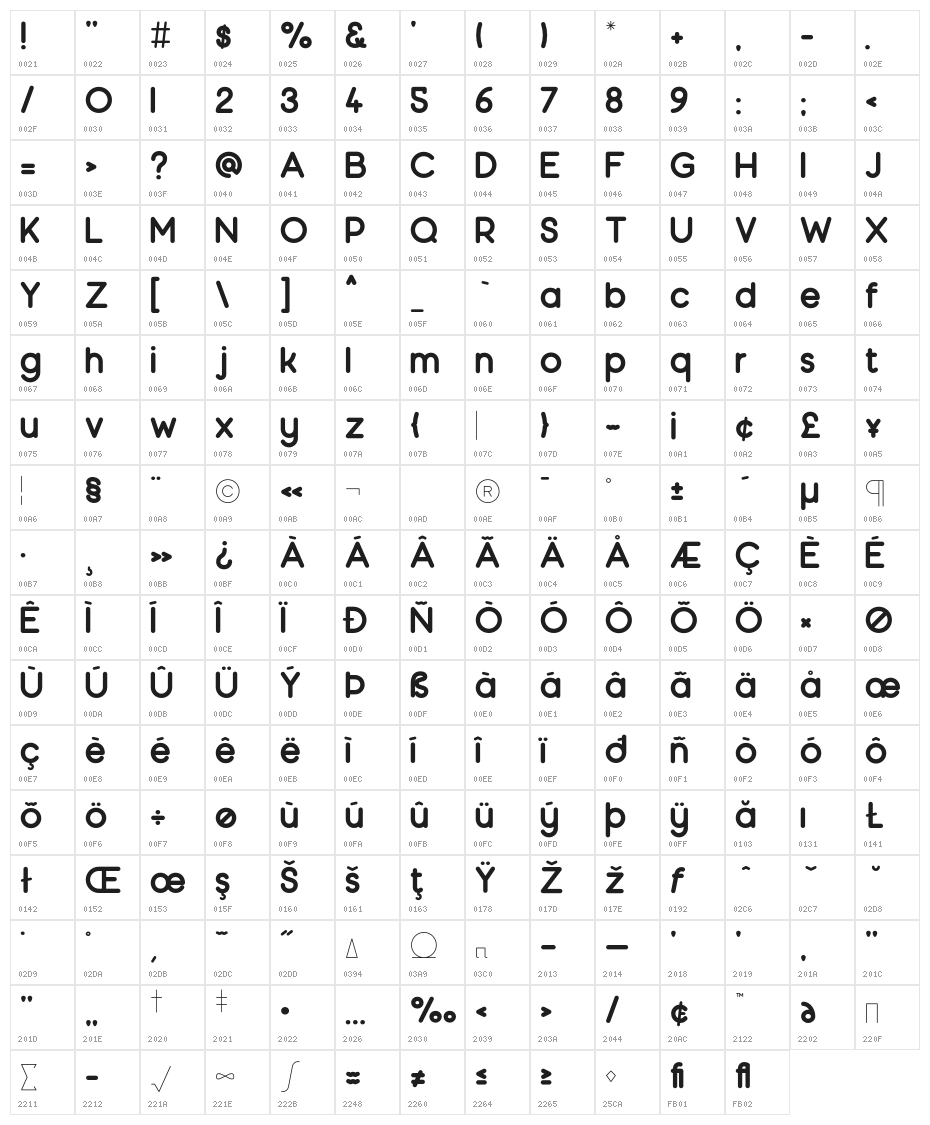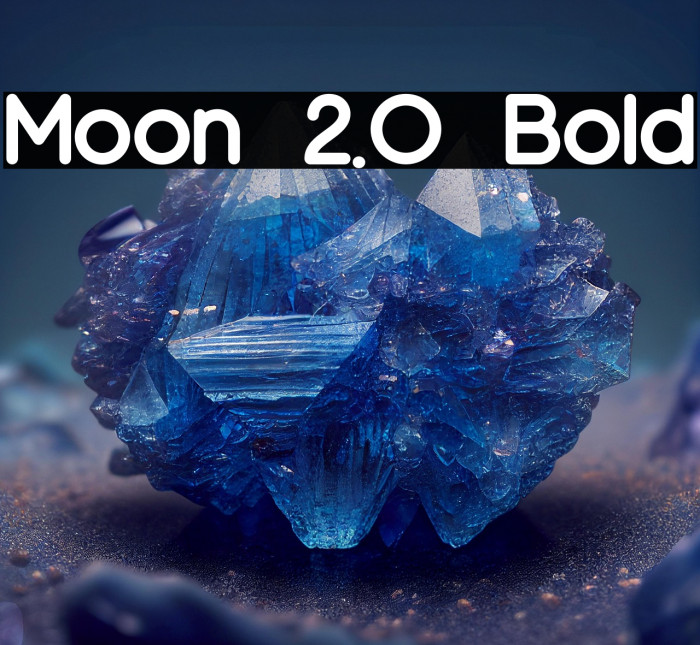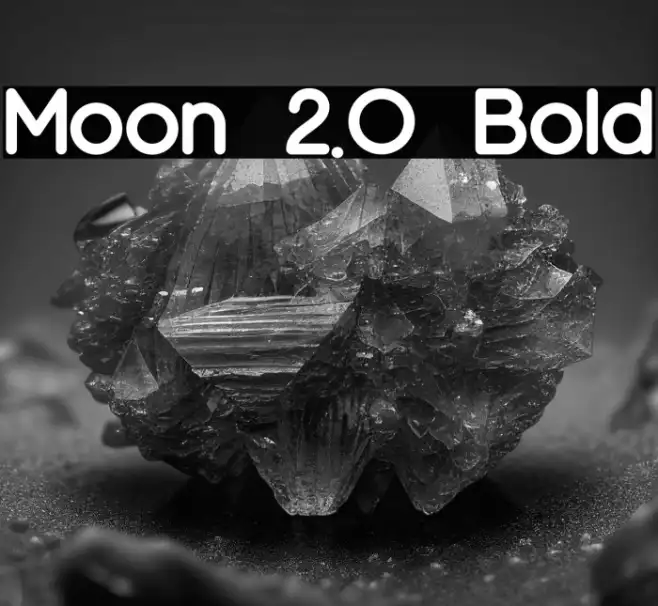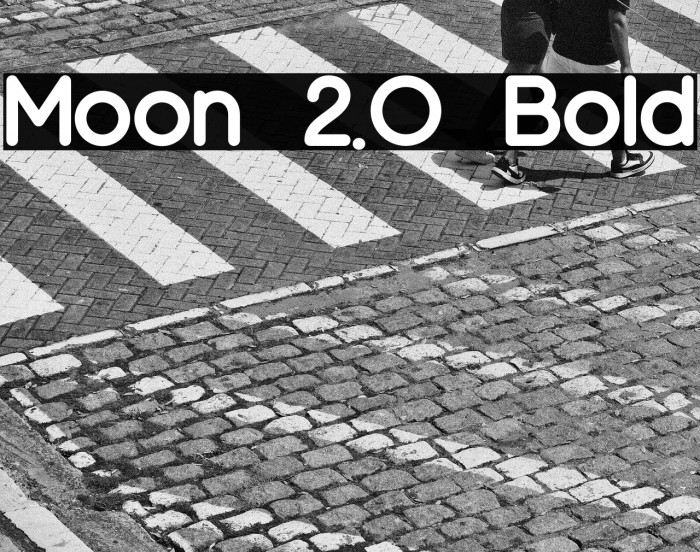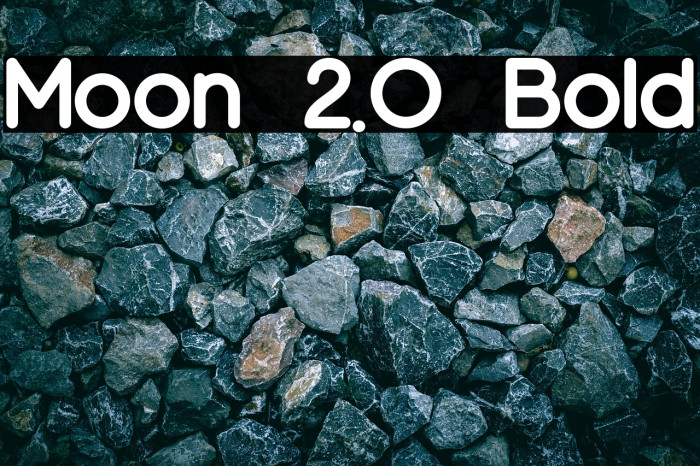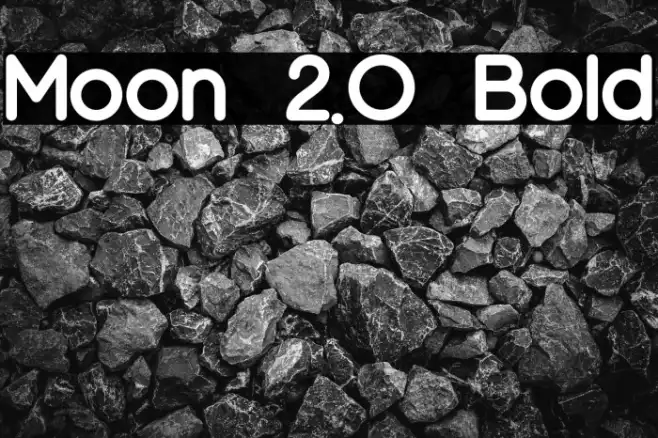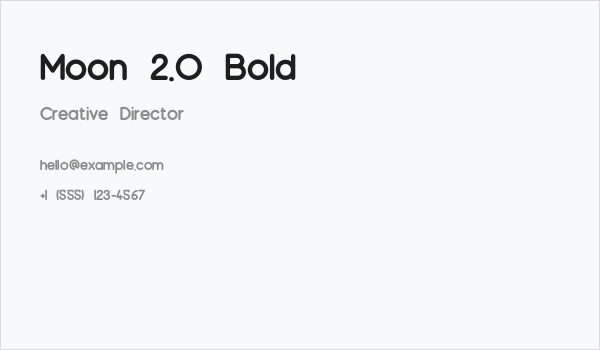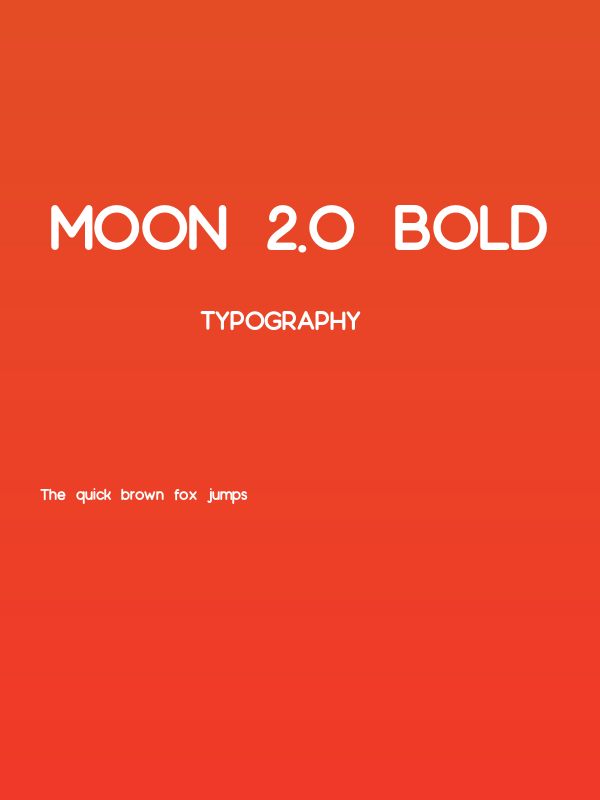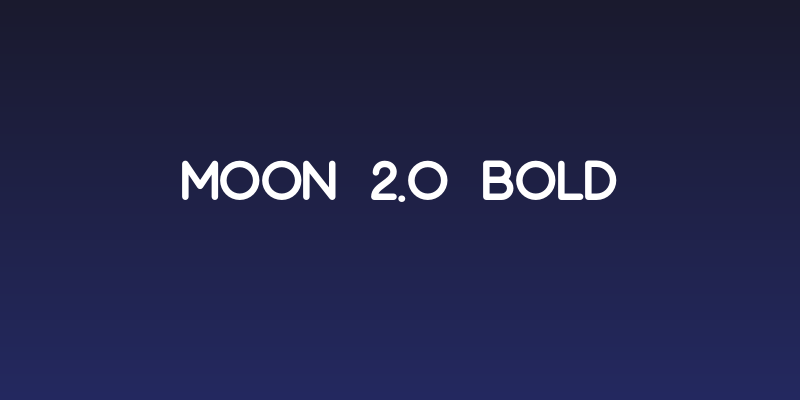
Moon 2.0 Bold Font
Moon 2.0 Bold Description
This font features a bold, rounded style with smooth curves and a modern aesthetic. The characters are evenly spaced, providing a clean and approachable look. The uppercase and lowercase letters maintain a consistent weight, contributing to a cohesive appearance. The numerals and special characters are designed to match the overall style, ensuring uniformity across different text elements. Its boldness and rounded edges make it suitable for projects that require a friendly and contemporary feel.
Use CaseHeadlines, Logos, Branding
Proposed ProjectsIdeal for branding, advertising, headlines, and digital media that require a friendly and modern touch.